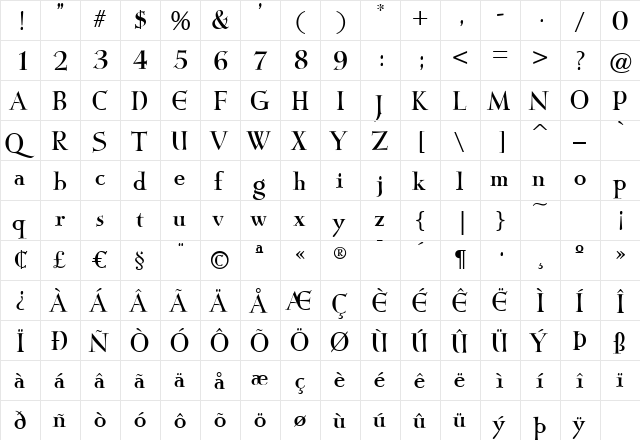
JohnAndrewJF Regular
Design Context for JohnAndrewJF Typeface
JohnAndrewJF takes a measured approach to typography — its balanced proportions and neutral character make it a reliable workhorse for both digital and print work.